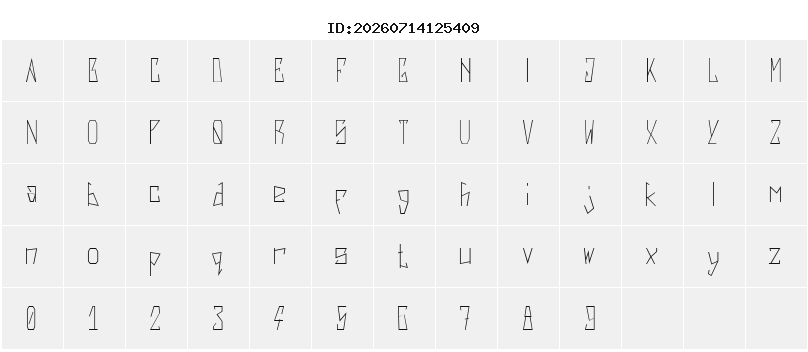
Harsh Preview
• Font Name: Harsh
• Font ID: Harsh - Regular
• Full Font Name: Harsh Regular
• PostScript Name: HarshRegular
• Designer: Fie Clarke - Bonez Designz
• Manufacturer: Fie Clarke - Bonez Designz
About Harsh.ttf
Harsh.ttf is a modern, elegant sans-serif font designed for ultimate readability and visual harmony. Perfect for branding, headlines, web design, and print materials.